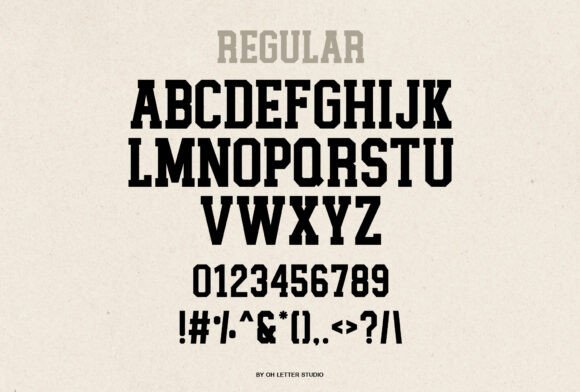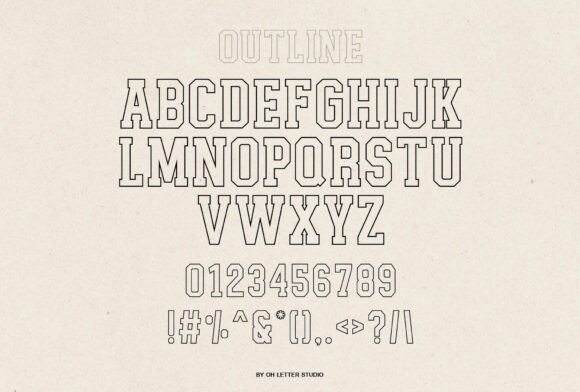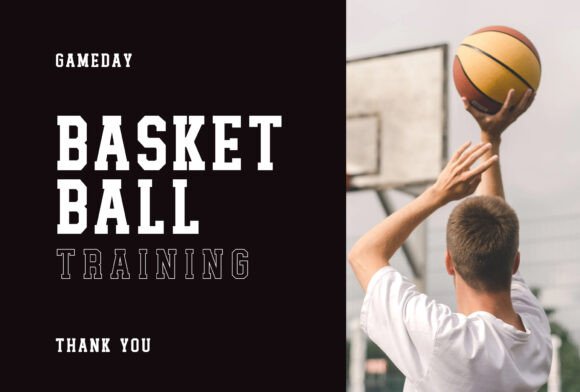
Introducing Allstar Academy Font: Elevate Your Designs with a Classic Athletic Look
Are you looking for a font that embodies the spirit of competition and athleticism? Look no further than the Allstar Academy Font, also known as Varsity Sport Font. This high-impact typeface is inspired by classic college and athletic lettering, making it perfect for team jerseys, sports logos, school spirit designs, and varsity-themed projects.
What is Varsity Sport Font?
Varsity Sport Font is a bold and dynamic typeface designed to bring a strong, competitive feel to your work. Its clean, blocky letters are ideal for creating standout titles, apparel prints, and promotional materials. Whether you’re designing for football, basketball, or cheer squads, this font delivers a powerful and professional athletic look.
Key Features of Varsity Sport Font
- High-Impact Design: Varsity Sport Font is designed to make a statement. Its bold and blocky letters are perfect for creating eye-catching titles and headings.
- Classic Athletic Inspiration: The font is inspired by classic college and athletic lettering, giving it a timeless and authentic look.
- Clean and Professional: The font’s clean lines and blocky letters make it perfect for creating professional-looking designs.
- Versatile: Varsity Sport Font can be used for a variety of projects, including team jerseys, sports logos, school spirit designs, and varsity-themed projects.
Varsity Sport Font is perfect for designers and crafters who want to add a touch of athleticism to their work. Whether you’re creating designs for sports teams, schools, or athletic events, this font is sure to deliver a powerful and professional look.
Use Cases for Varsity Sport Font
- Team Jerseys: Use Varsity Sport Font to create bold and eye-catching team jerseys that will make your team stand out.
- Sports Logos: Create professional-looking sports logos that embody the spirit of competition and athleticism.
- School Spirit Designs: Use Varsity Sport Font to create school spirit designs that will get everyone pumped up and excited.
- Varsity-Themed Projects: From flyers to posters, Varsity Sport Font is perfect for any varsity-themed project.
Tips for Using Varsity Sport Font
- Pair with Other Fonts: Experiment with pairing Varsity Sport Font with other fonts to create a unique and eye-catching look.
- Use Bold and Bright Colors: Use bold and bright colors to make your designs pop and stand out.
- Experiment with Different Sizes: Experiment with different font sizes to create visual interest and hierarchy.
| Font Name | Allstar Academy Font |
| Author | Marty Letter Studio |
Varsity Sport Font, also known as Allstar Academy Font, is a high-impact typeface that is perfect for designers and crafters who want to add a touch of athleticism to their work. With its classic athletic inspiration, clean and professional design, and versatile uses, this font is sure to deliver a powerful and professional look. So why wait? Download Varsity Sport Font today and start creating stunning designs that will make your team or school stand out!